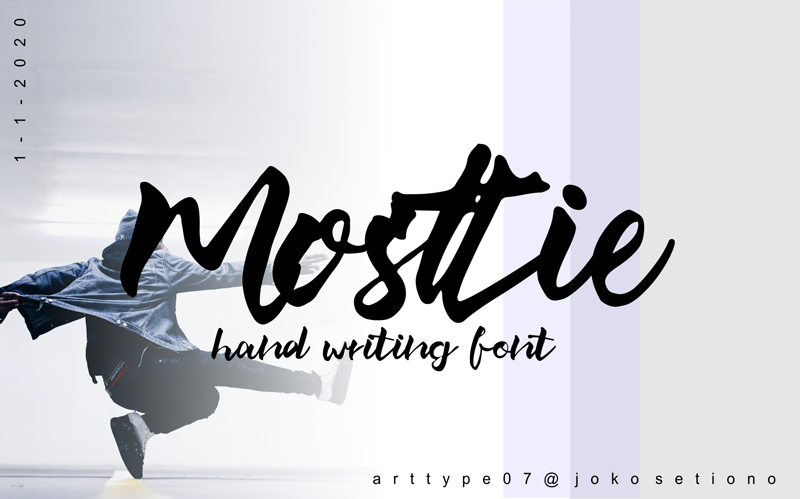
Preview and download Mosttie Font. Created by Joko Setiono in Script Graffiti styles with Free for personal use license.
This font is perfect for logos, business cards, weddings, and many other projects for this purpose. if you have questions, don't hesitate to leave in the comments column. |